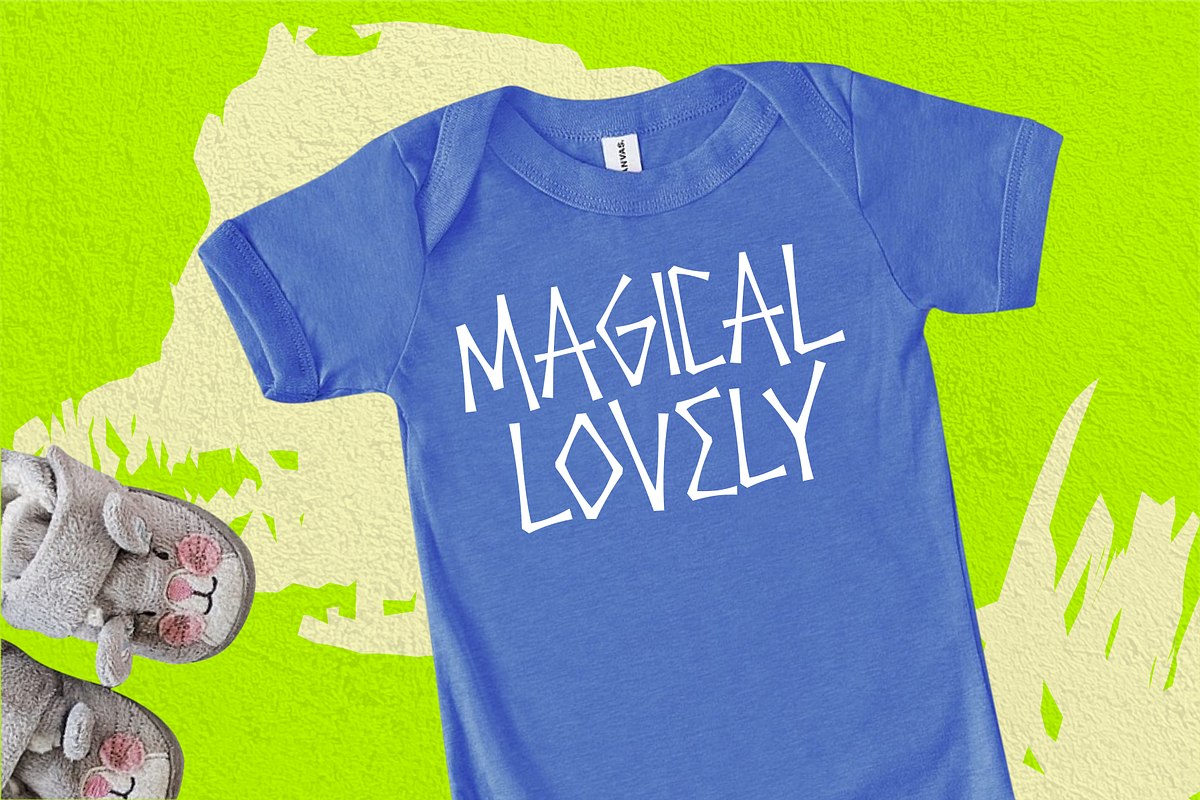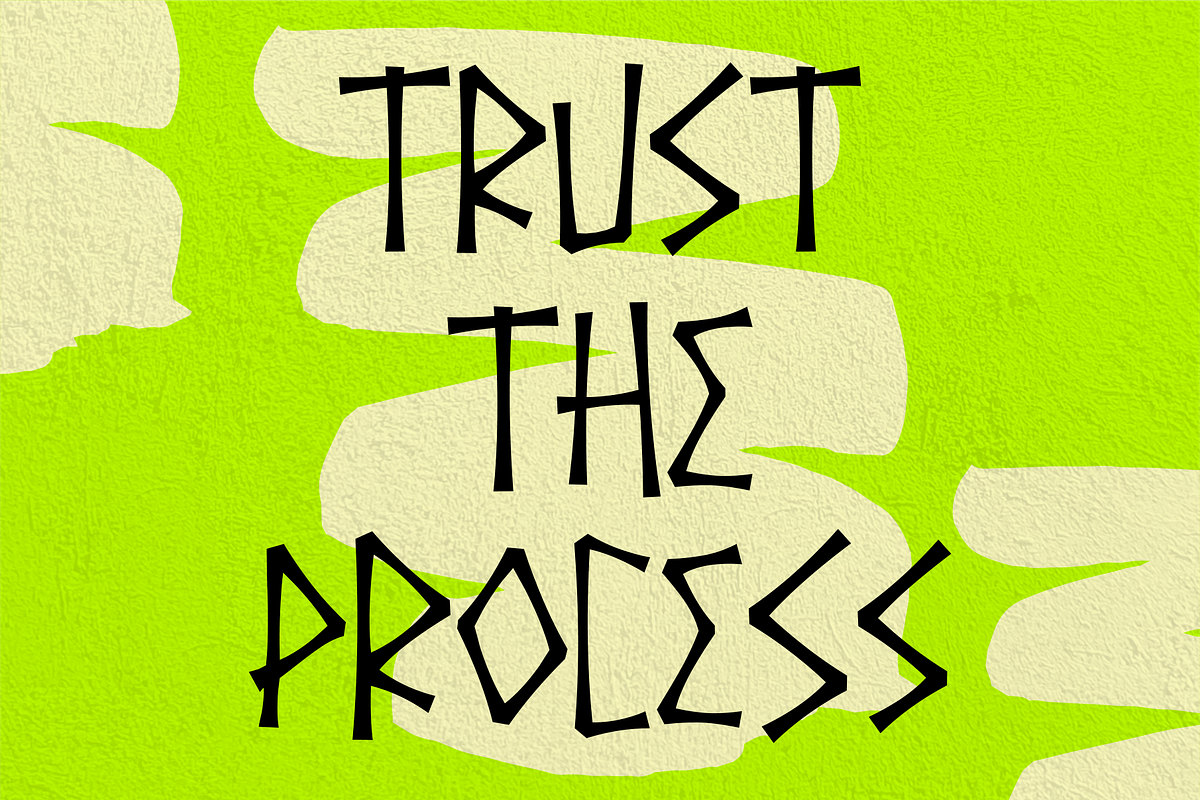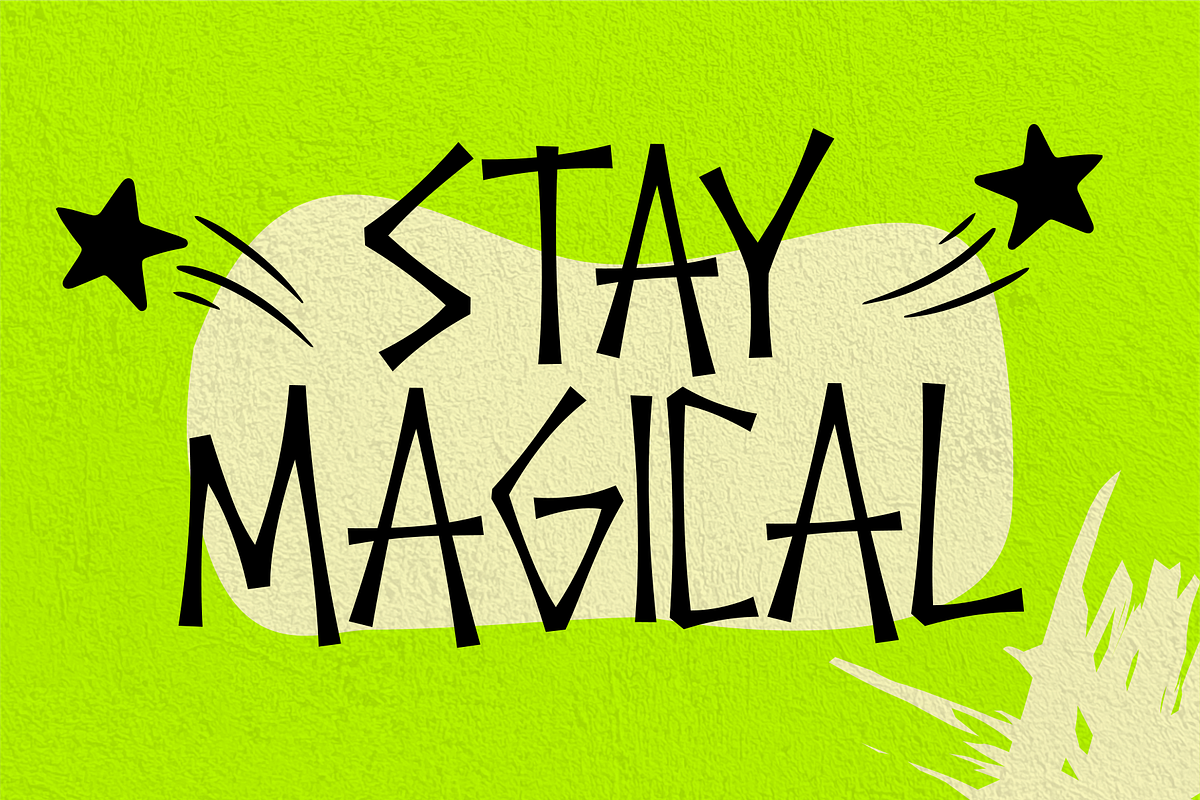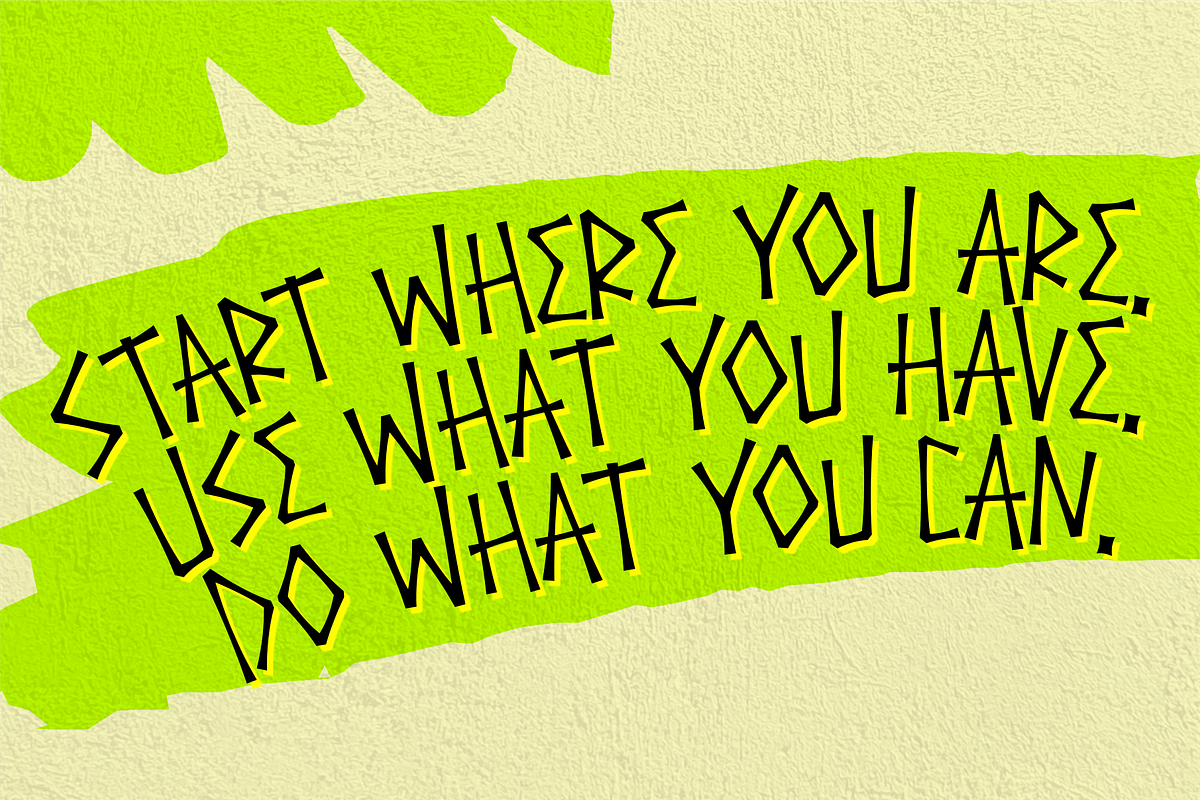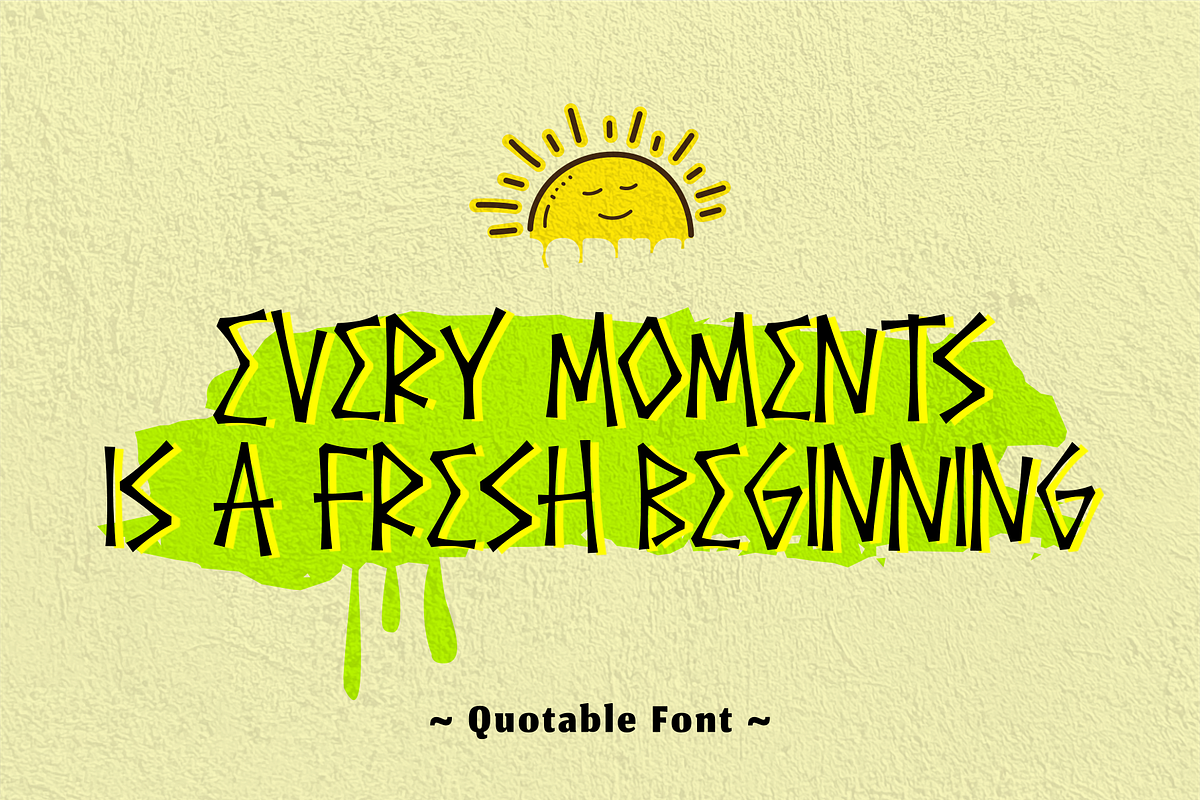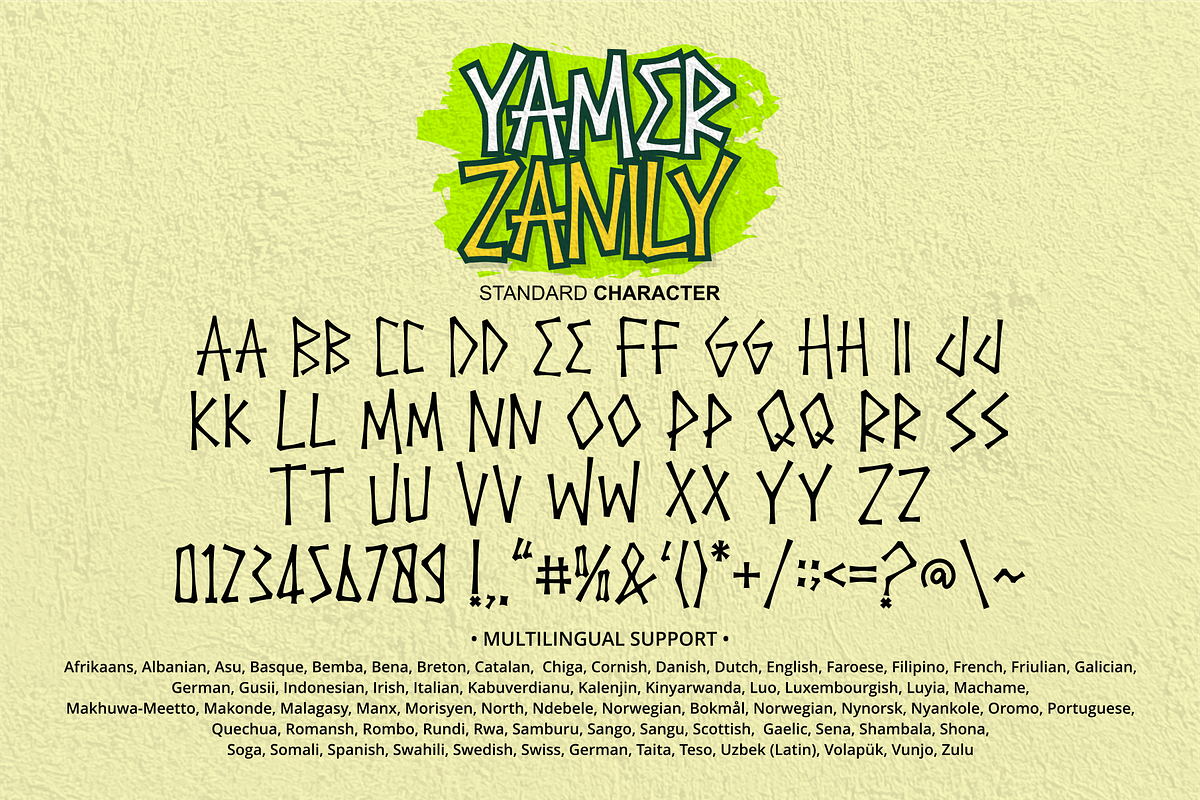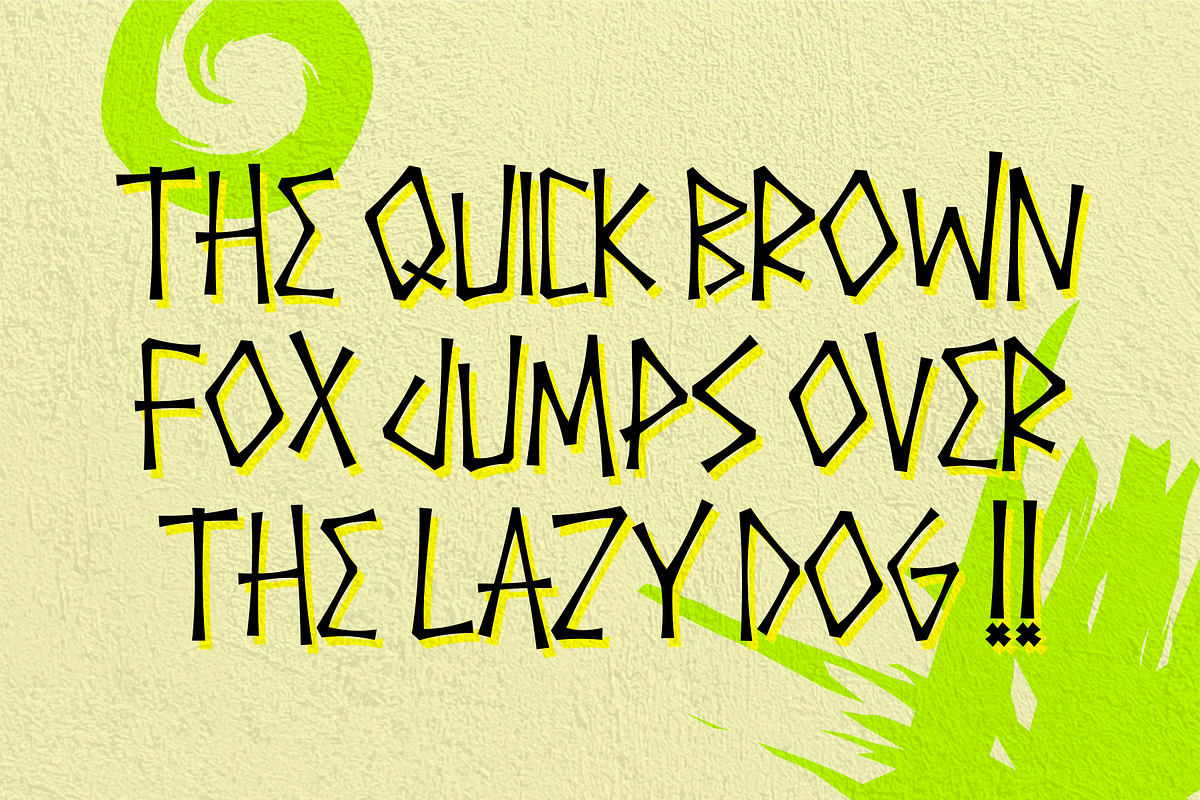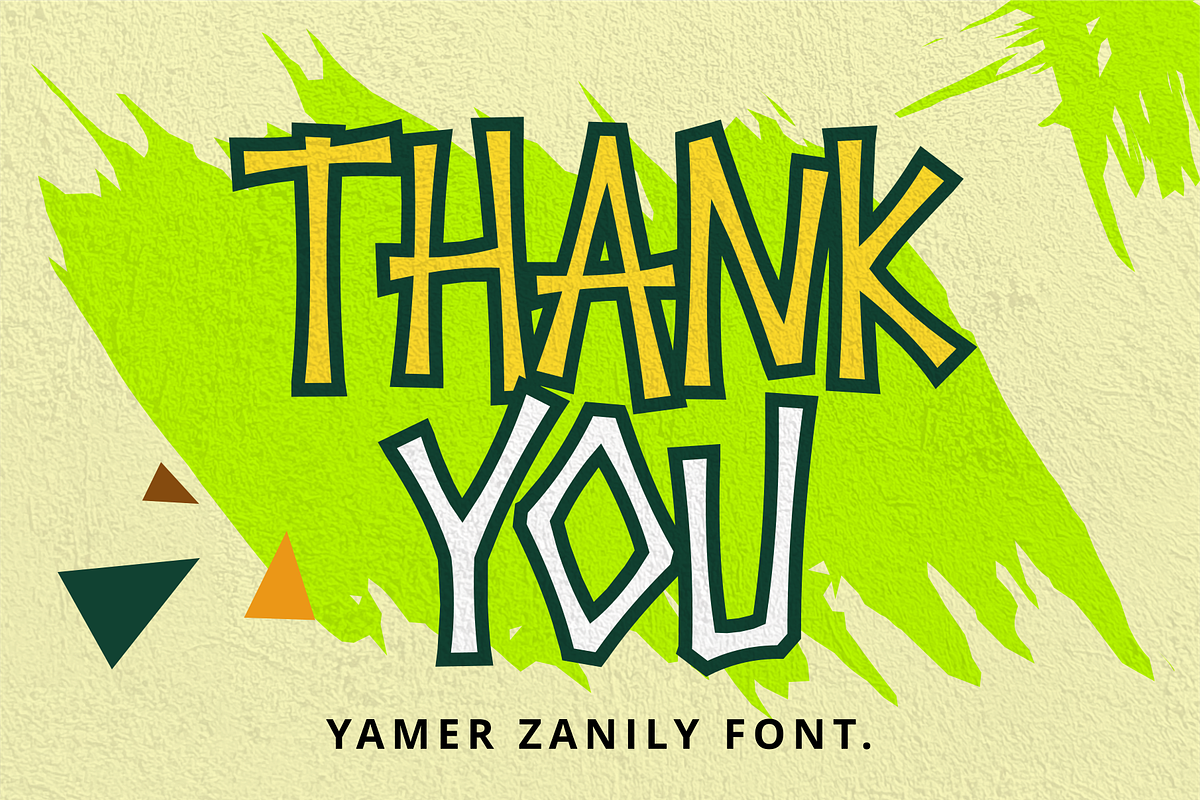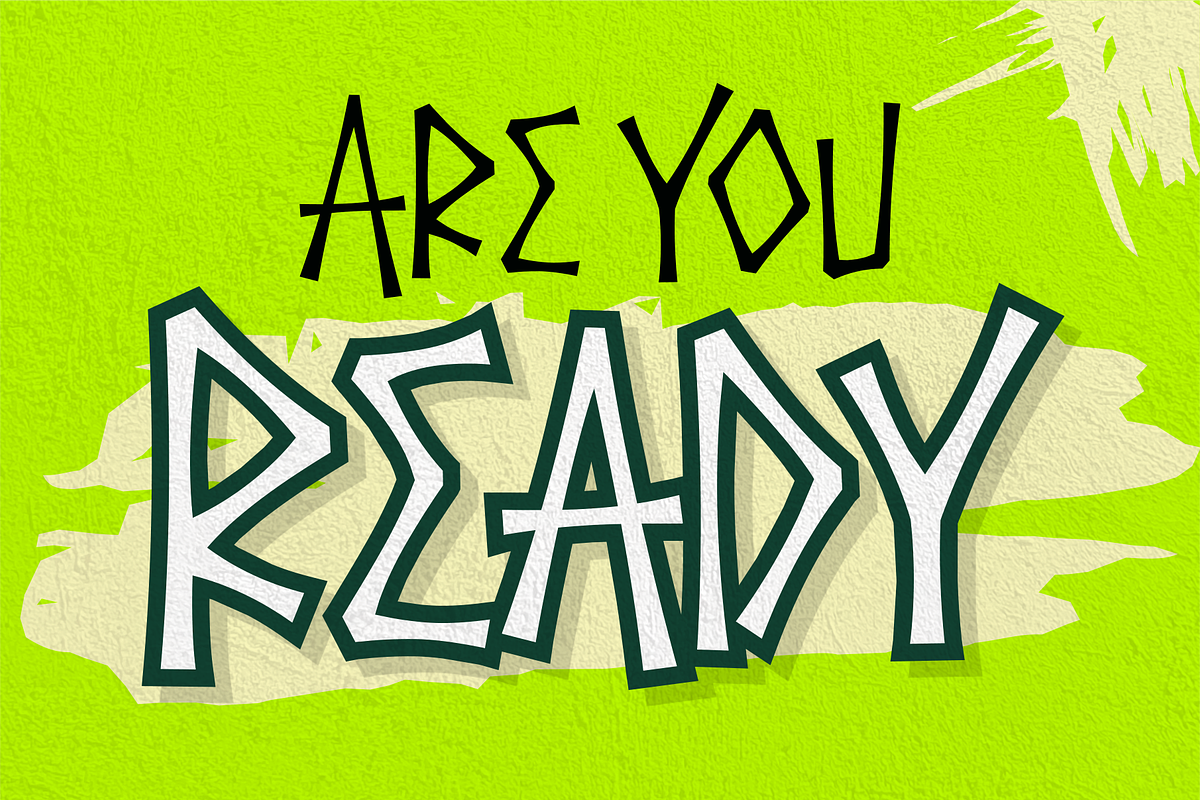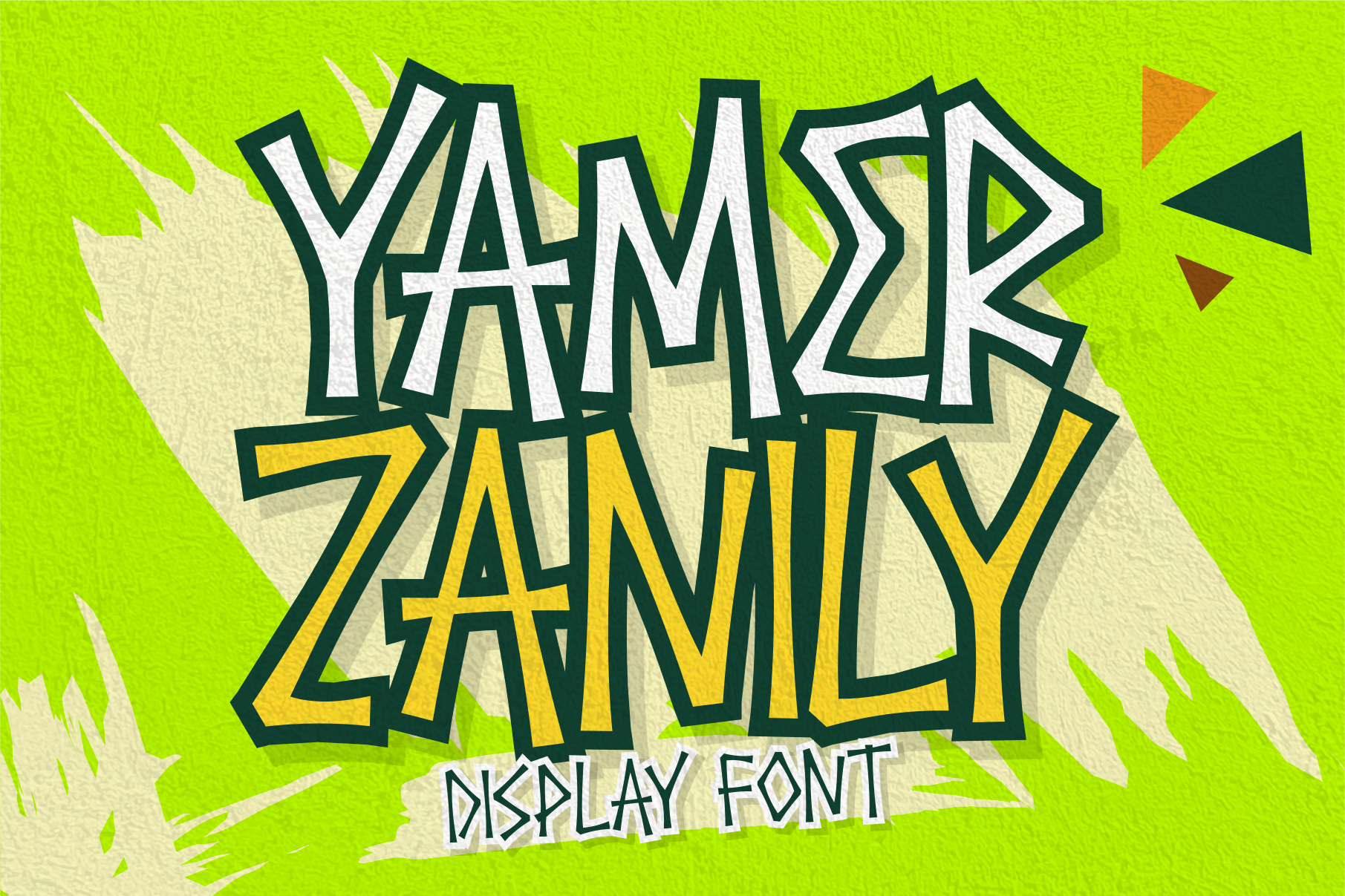
Yamer Zanily Font
Yamer Zanily is a display font that exudes a cheerful yet spooky feel, making it suitable for a variety of themes, from children's shows to horror motifs. The shapes of the characters are varied, with intricate details that bring them to life, full of personality.
The letters in Yamer Zanilly have lines that are not entirely straight and consistent, giving the impression of being hand-drawn. This adds a playful and somewhat quirky touch, which can be charming in certain contexts.